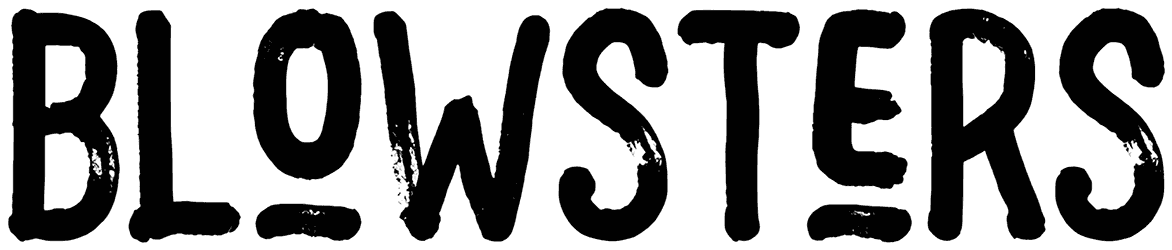
Blowsters Font
This is a brush font with a contemporary feel that is called Blowsters. Even though it doesn’t have lowercase letters, it is still the best font to use when making logos, invitations, and banners that stand out.